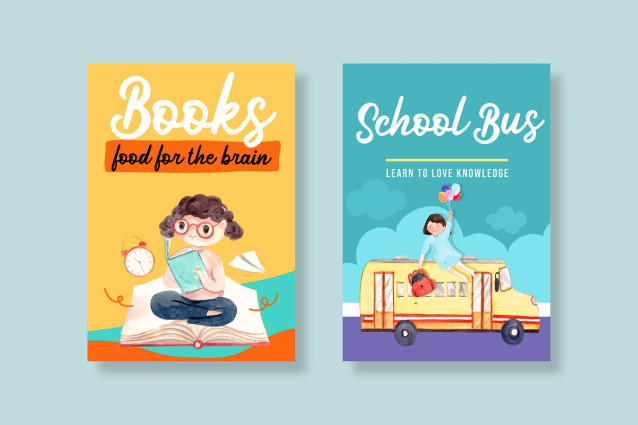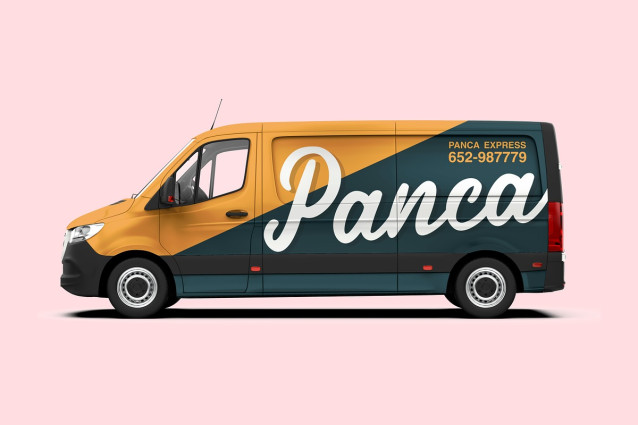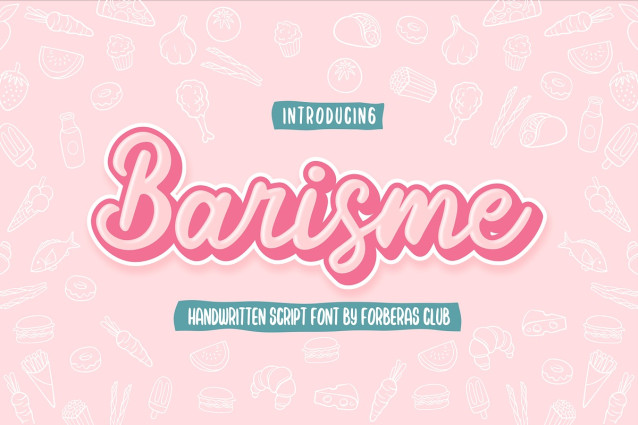
Barsime Script Font
Barsime Script Font – Modern and beautiful handwritten script font! Great for wedding greeting cards, logos, branding materials, Invitation, business cards, quotes, posters, Cricut artwork and more!